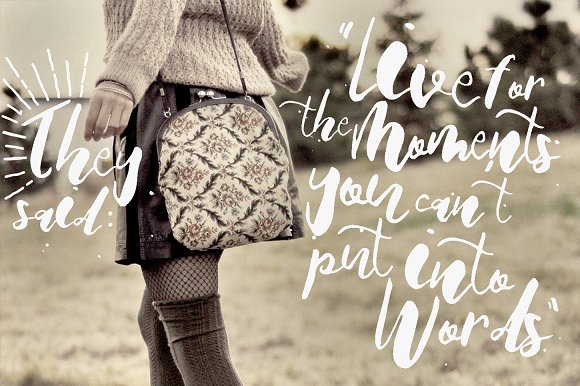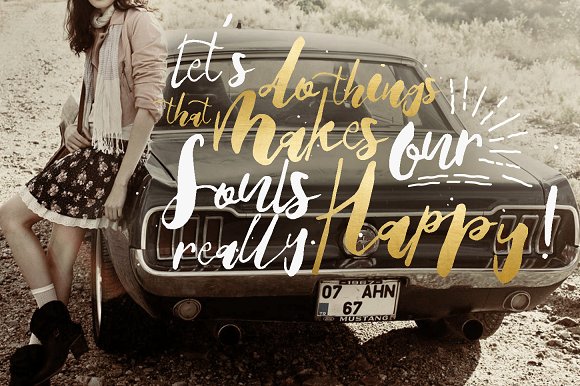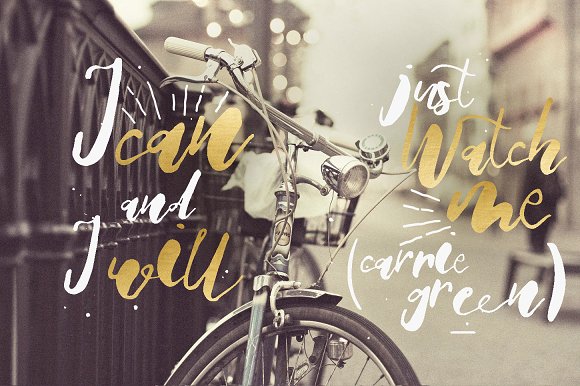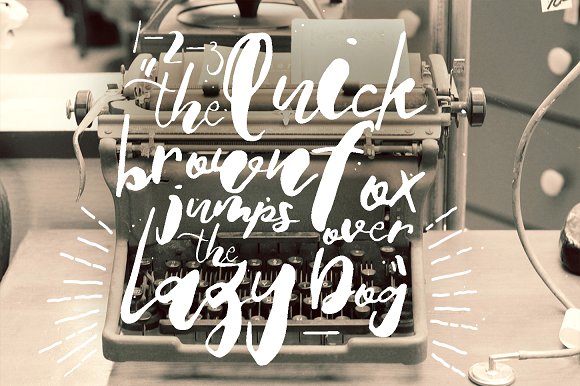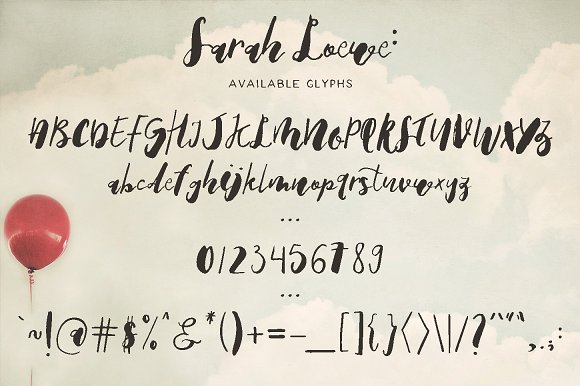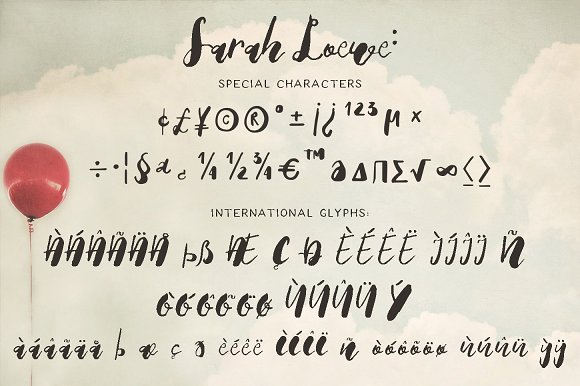
Introduction to Sarah Loewe Font
Sarah Loewe is a mix of thin and fat-shaped glyhps.
Combined this turn into a fun & playful script font Sarah Loewe is manually created using a brush pen.
Key Features of Sarah Loewe Font